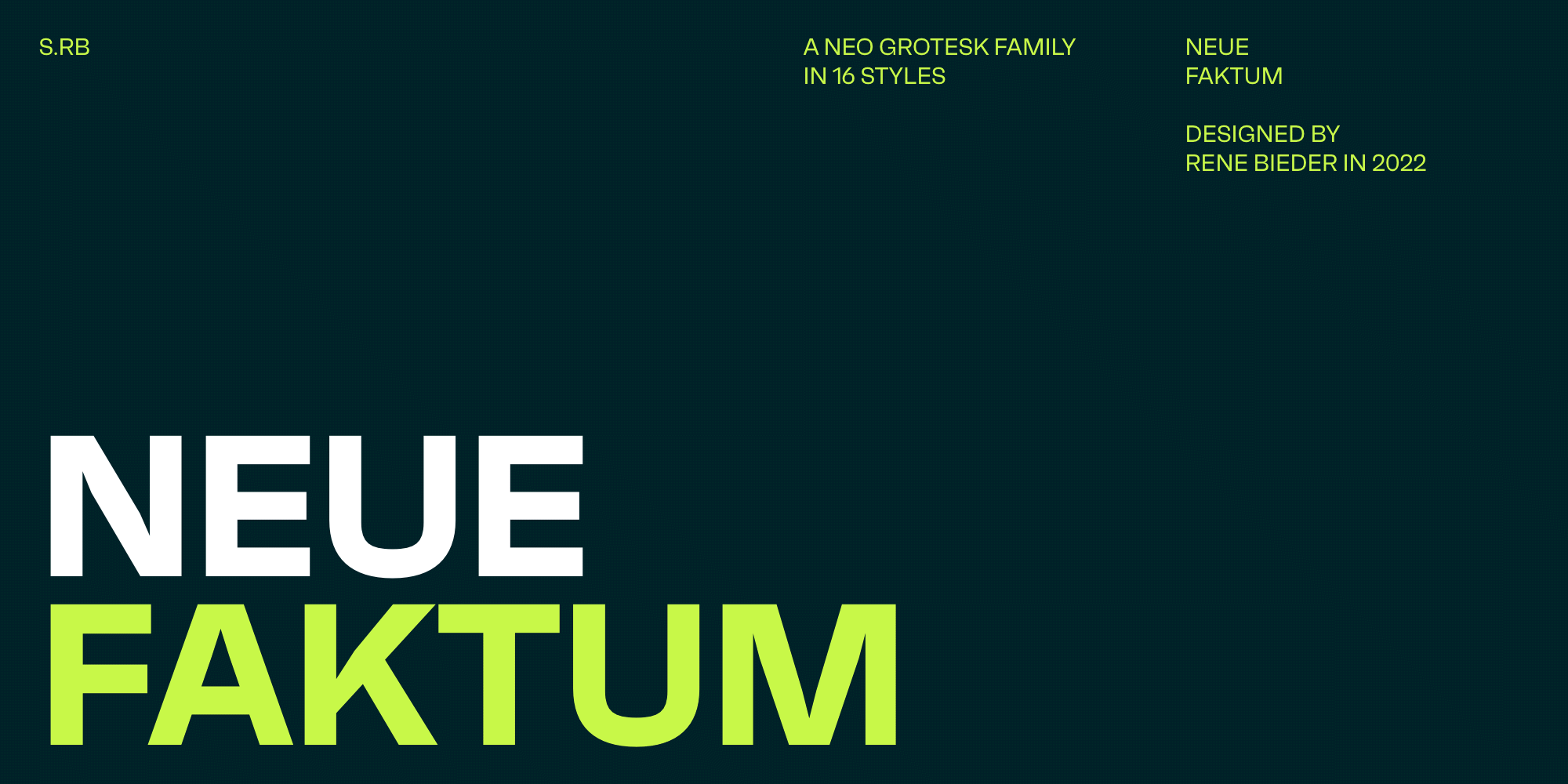
Neue Faktum Font is a sleek, contemporary sans-serif typeface designed to bring clarity and impact to your projects. Perfect for branding, editorial design, web interfaces, and advertising, this font delivers clean lines and a bold presence.
What makes Neue Faktum Font Free Download so exciting is its versatile weights and geometric forms that allow for strong hierarchy and effortless readability, making it a top choice for modern design needs.
The Neue Faktum Font family typically includes multiple weights and styles, such as Light, Regular, Bold, and Italic, providing flexibility to create dynamic typographic compositions.
Whether you're crafting logos, magazine layouts, or digital content, Neue Faktum Font Free Download ensures your designs stand out with a professional and polished look.